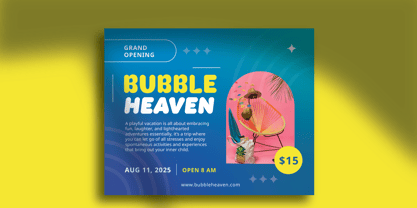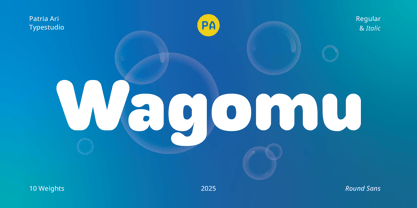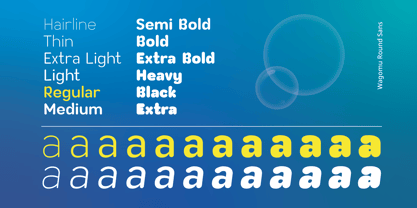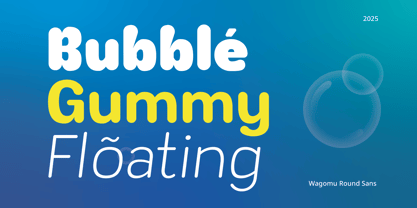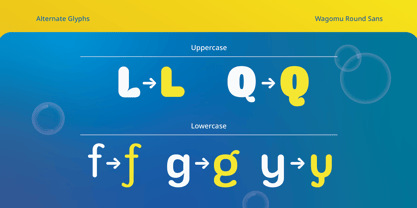
Wagomu
by Patria Ari
The Wagomu Font Family was designed by Patria Ari Wijonarko and published by Patria Ari. Wagomu contains 24 styles and family package options.
Wagomu rounded sans is a playful and whimsical cursive balloon font that brings a lighthearted, bubbly charm to any design. With its smooth, flowing strokes and rounded, inflated letterforms, Wagomu exudes a sense of fun and creativity. Perfect for children's books, party invitations, branding, and social media graphics, this font adds a touch of joy and friendliness to your typography.
Whether you're designing for a festive event or crafting an eye-catching logo, Wagomu Fonts will lift your text with its airy, elegant curves and soft, balloon-like aesthetic.